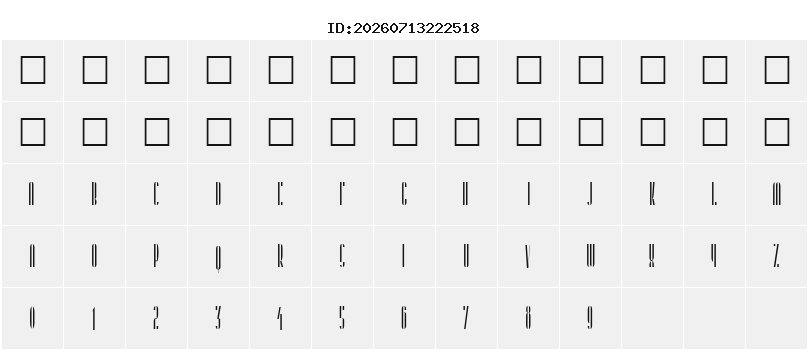
CajunQueen Preview
• Font Name: CajunQueen
• Full Font Name: CajunQueen
• PostScript Name: CajunQueen
About CajunQueen.ttf
CajunQueen.ttf is a modern, elegant sans-serif font designed for ultimate readability and visual harmony. Perfect for branding, headlines, web design, and print materials.